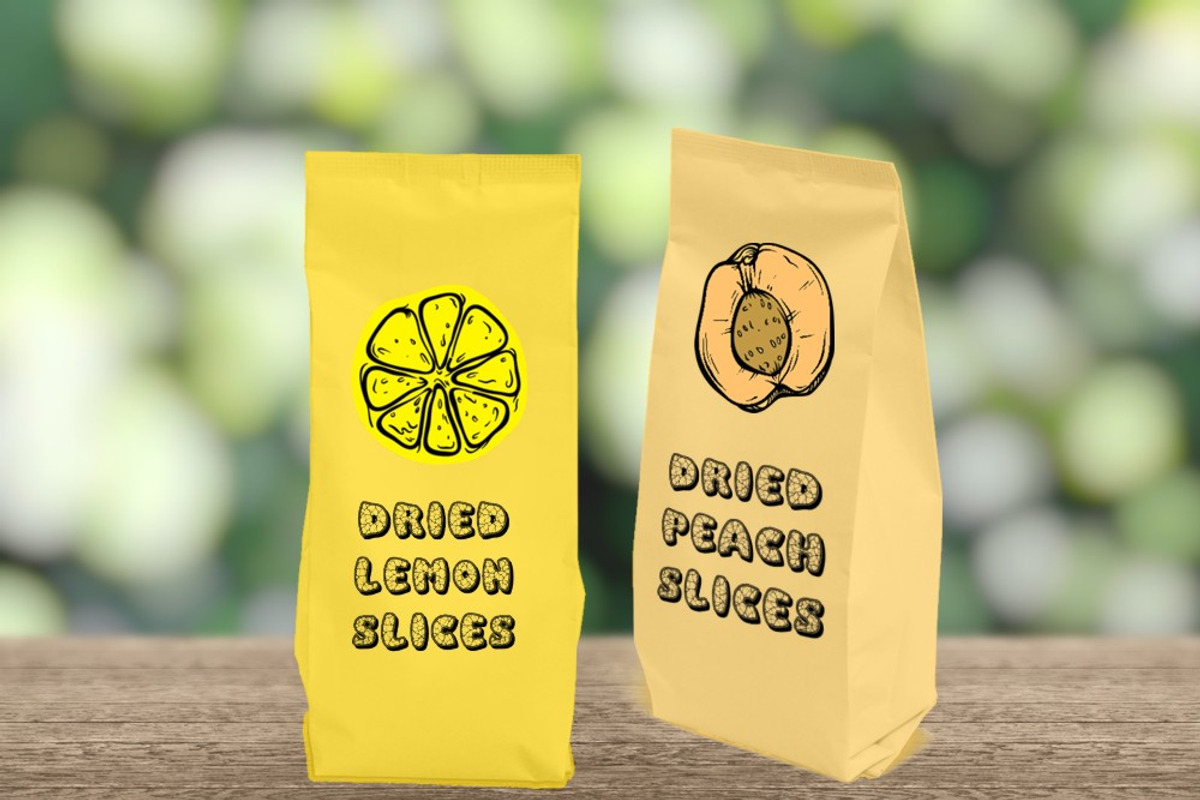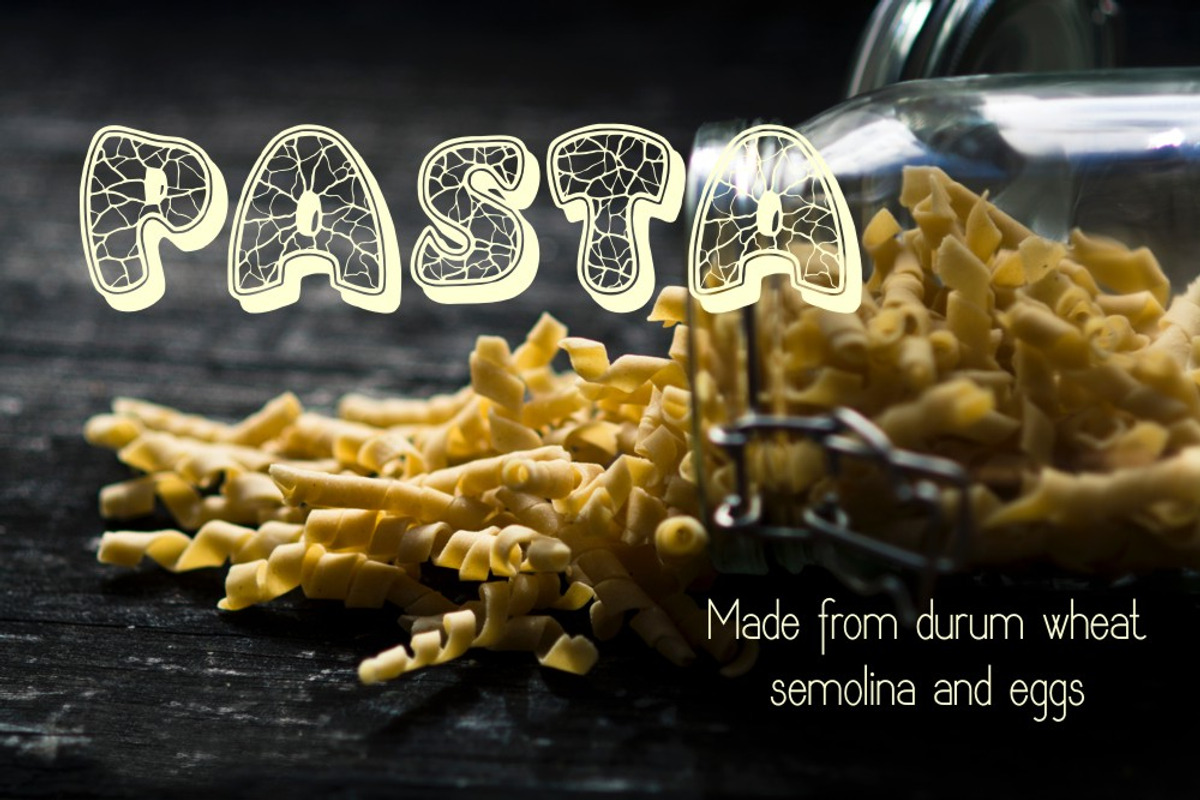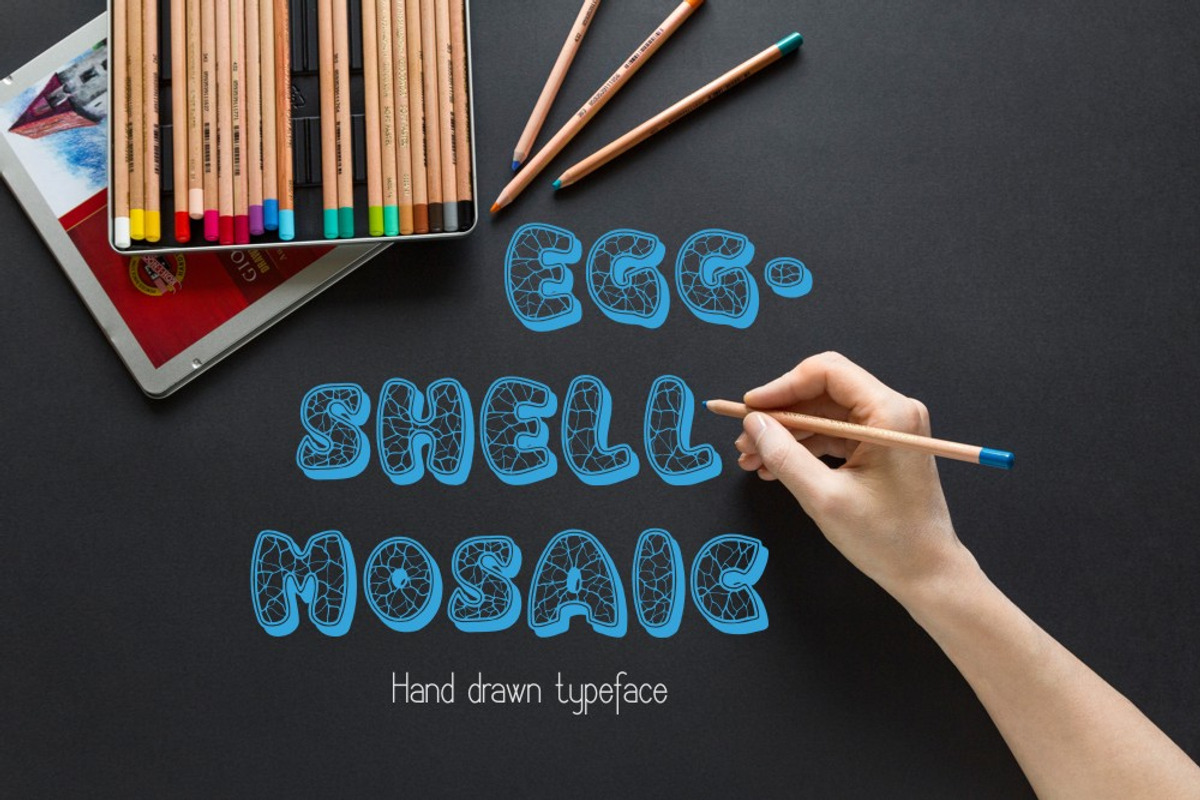
Eggshell Mosaic Font
Eggshell Mosaic Font by Digital Typeface Studio is a font selected for branding, posters, packaging, typography.
Why Eggshell Mosaic Font is worth a look
Eggshell Mosaic Font by Digital Typeface Studio fits naturally into Branding, posters, packaging, typography.